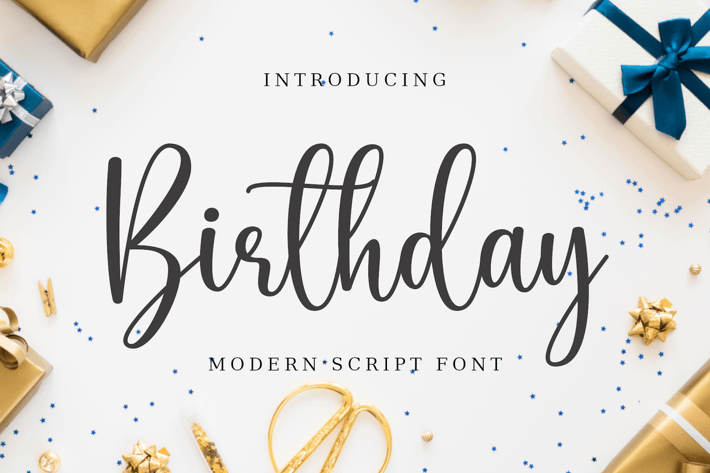
Birthday Modern Script Font
Birthday is a modern signature font that blends elegance with a personal touch. Featuring fluid strokes and a natural handwritten feel, it’s perfect for wedding invitations, branding, photography logos, and upscale packaging designs.
Whether you're creating a romantic design or a luxury label, Birthday brings a graceful and timeless presence to your project.
Key Features:
- Elegant handwritten signature style
- Ideal for weddings, logos, and branding
- Smooth flow and authentic pen look
- Adds personal charm to any design
- Uppercase & lowercase characters
- Numbers and punctuation
- Multilingual support
Celebrate every moment with the graceful beauty of Birthday.